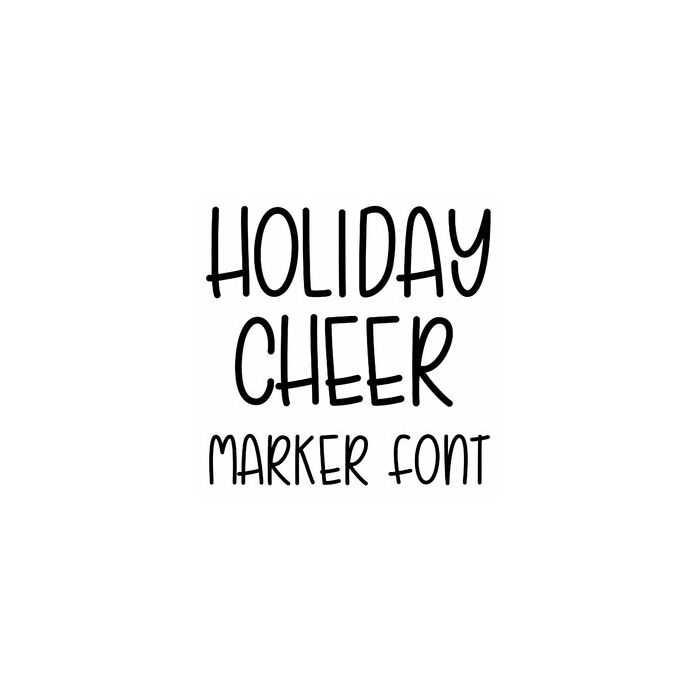
This all caps handwriting marker font is fun for Christmas, Halloween, Thanksgiving, and birthday crafts, cards, signs, gifts, planners, and personalization projects.
Includes all caps alphabet, numbers, and punctuation.